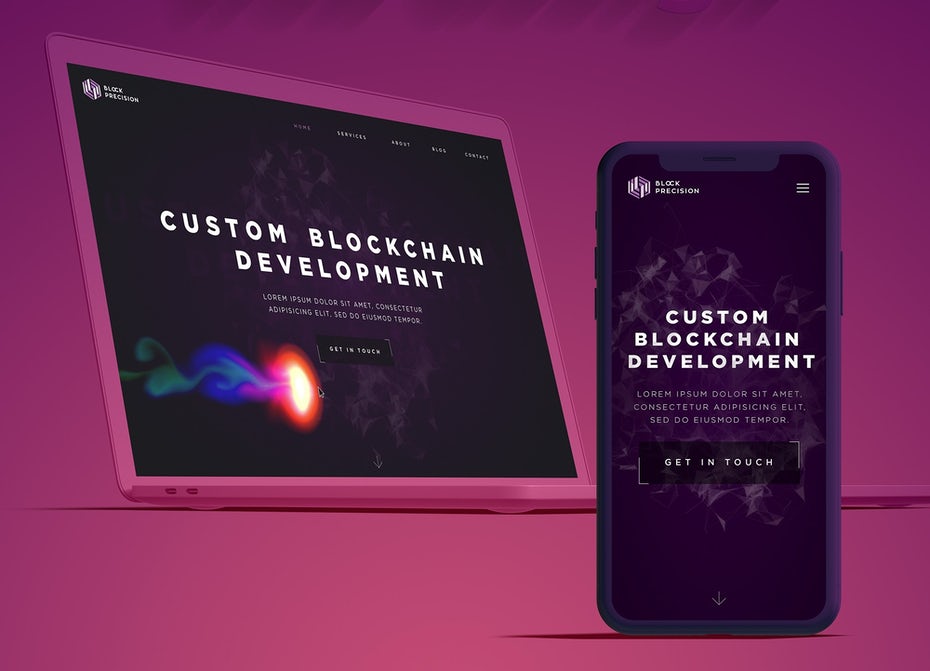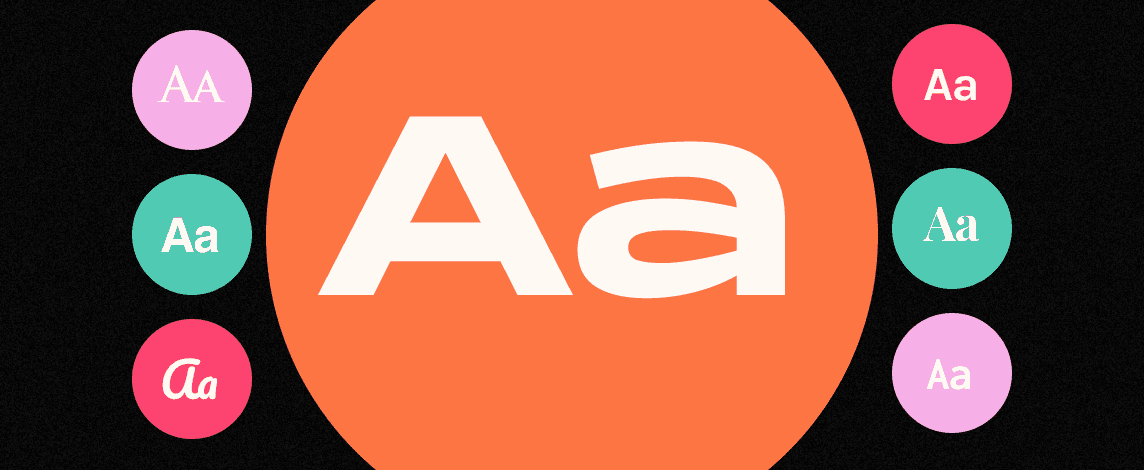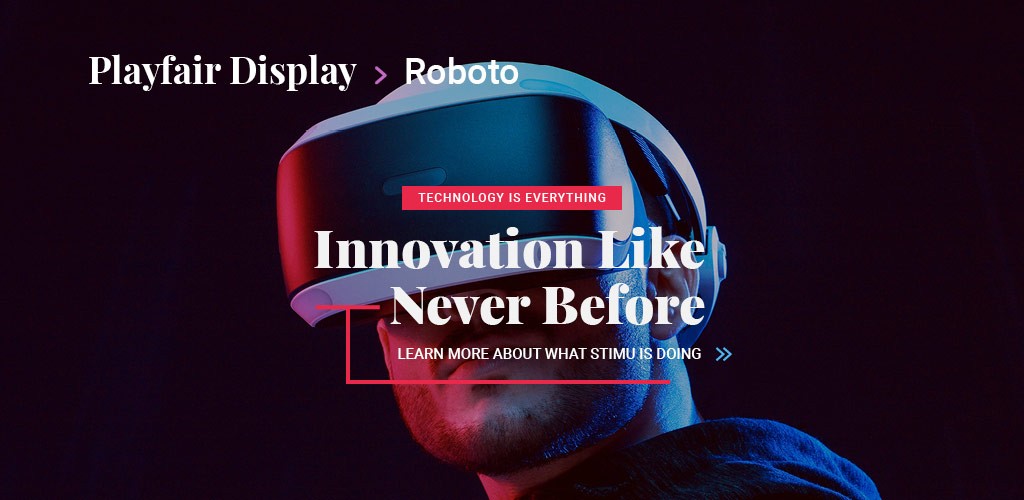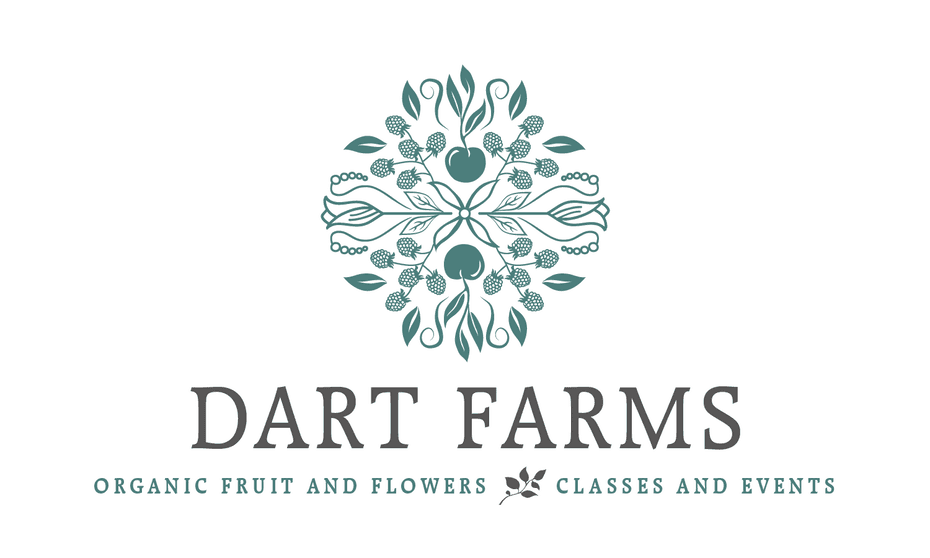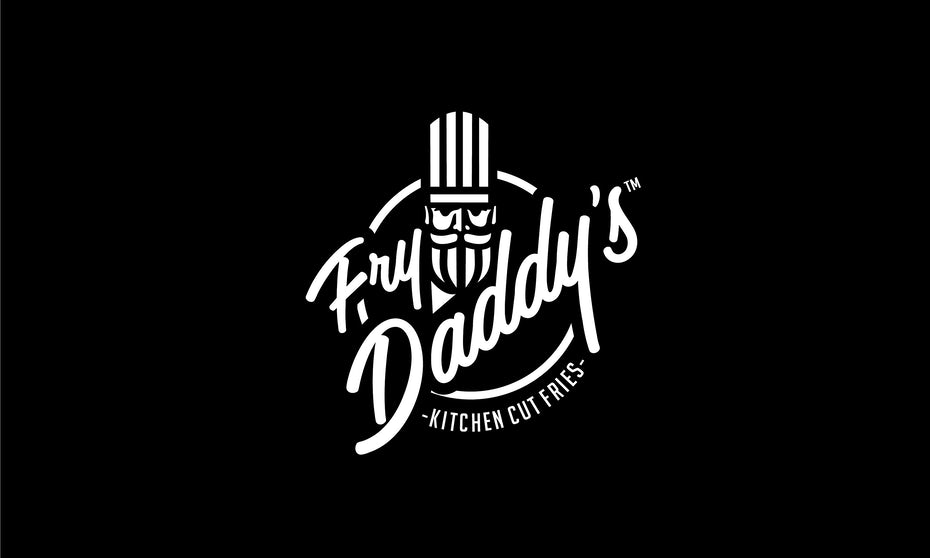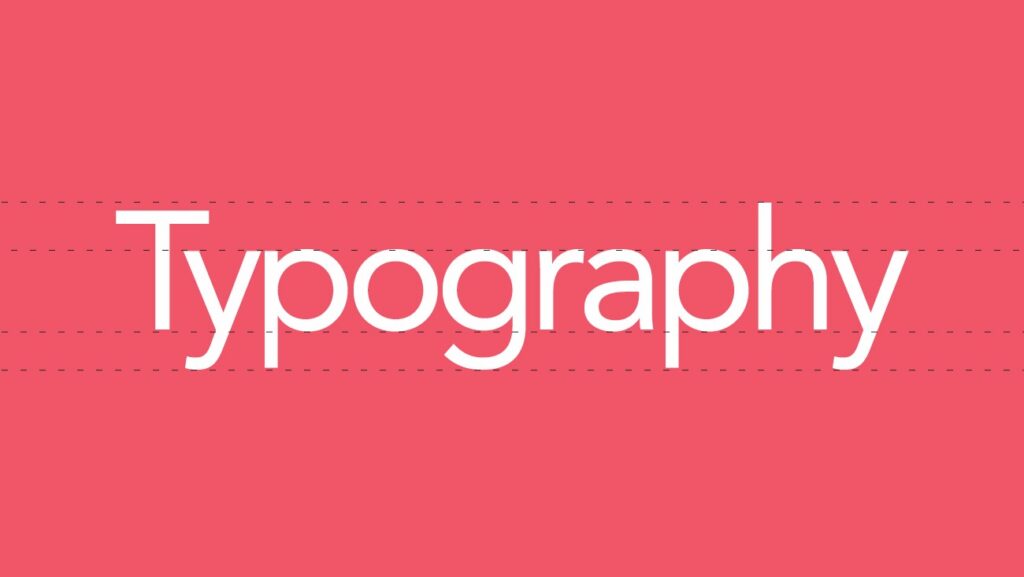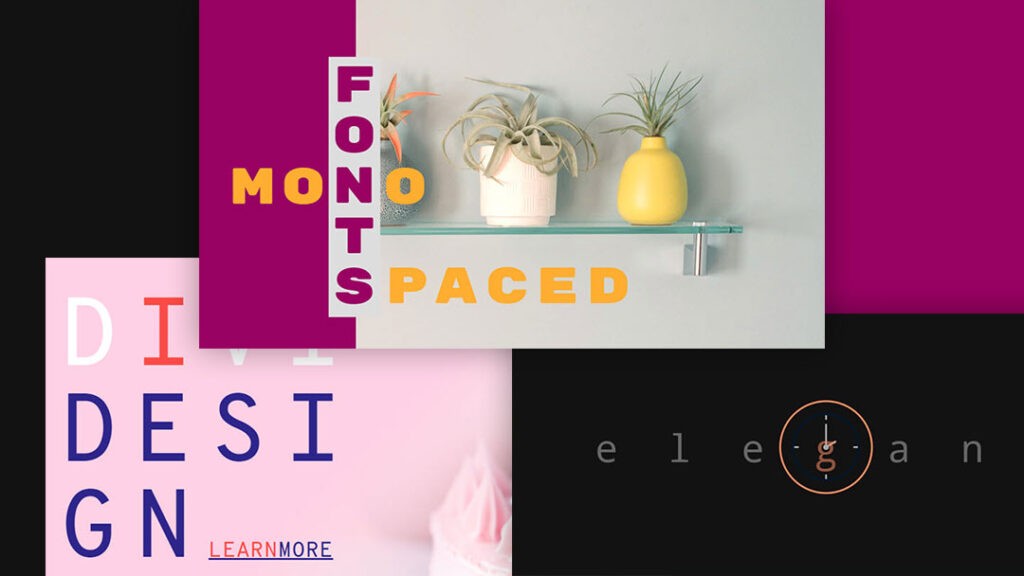
5 Different Font Types & How To Use Them In Graphic Design [A Definitive Guide]
What is typography?
Typography is the artistic technique of arranging letters and sentences in a way that improves clarity and readability. It involves analyzing the meaning and messaging of the text in order to display it in a way that resonates with the message.
Fonts style is perhaps the most important element of typography. It certainly plays a big role in graphic design. In the modern world, typography is mostly associated with digital and printed media.
When designing an ad, a banner, announcement, social media post, leaflet or any other informative visual involving text, choosing the right font is important. While it is not necessary for you to know every font out there, being familiar with the top 5 font types always helps. So let's get started!
1. Serif
Characteristics: Decorative tails and strokes/ Extensions at the end of character terminals
Key function: Used in printed material
Examples: Times New Roman, Garramond, Baskerville, Georgia, Playfair
Dating back to the 15th century, Serif type fonts are the oldest in the world and can be found in ancient Roman engravings. The word "Serif" refers to the characteristic finish to the letters that appear as feet or stands. Due to their readability, these fonts are widely used in formal and lengthy texts such as books, newspapers, journals and academic papers.
Though we won't go into detail about them, it is useful to know that there are four sub-classes of Serif fonts, namely Old style serif, Transitional serif, Didone serif and Slab serif fonts.
2. Sans serif
Characteristics: Clean lines/ No ending flourishes
Key function: Screen-based text
Examples: Helvetica, Proxima Nova, Calibri, Futura, Arial
As the name indicates, Sans serif fonts do not end with the characteristic "feet" found in Serif fonts. The absence of thin, unstructured flourishes means that these fonts fit best on displays and are therefore suitable for blogs, applications, and on-screen assets.
They are popular in the commercial sector and are sometimes known as ‘big tech’ fonts. Because of their clean, formal and minimalist look, they are especially useful in the design of banners, logos, and digital displays. One of the most prominent Sans serifs in the world, Gotham, is used in the iconic Hope poster featuring Barack Obama.
3. Script
Characteristics: Mimics traditional cursive writing or calligraphy
Key functions: Multiple uses
Examples: Broadley, Monarda, Raksana, Hope Sans, Palmer Lake
These elegant, ornate fonts have been designed to imitate handwritten scripts. Due to their decorative feature, Script fonts are not suitable for many uses. For example, they cannot be used in advertisements since some people may find it difficult to read. However, they can be used for creative purposes such as wedding invitations, liqueur bottle labels and beauty products.
4. Monospace
Characteristics: Each letter occupies the same horizontal space
Key function: Coding
Examples: Courier, Lucida Console, Menlo, Monaco, Inconsolata
Monospace fonts are also known as fixed-pitch, fixed-width, or non-proportional fonts. Due to their uniform spacing, Monospace fonts are commonly used in coding or computer programming, digital baking transactions, ASCII Art, OCR and typing numerals.
Monospace fonts were originally created for typewriters and other printing devices. Courier is the most popular font in this group and is the Slab serif created by Howard Kettler for IBM typewriters.
5. Display
Characteristics: Big, bold fonts
Key functions: Statement headlines and signs
Examples: Johnston, Transport, Highway Gothic, Clearview
As the name suggests, Display fonts are used to make statements and display small sections of attention-grabbing text. These fonts are specifically designed for to appear on sign boards, advertisements, billboards and titles instead of body text.
Display fonts can be used in both formal and informal visual designs. They come in many different varieties like inclines, script, ultra-light, ultra-bold, distressed and hand-drawn.
While most Display fonts have been designed to be large and legible, their uses are constantly being revised to induce emotive responses.
5. What are the top 10 most popular fonts?
Though the popularity of fonts changes with the trends in the design space, the most favored fonts are Helvetica, Calibri, Futura, Garramond, Times New Roman, Arial, Cambria, Verdana , Rockwell and Franklin Gothic.